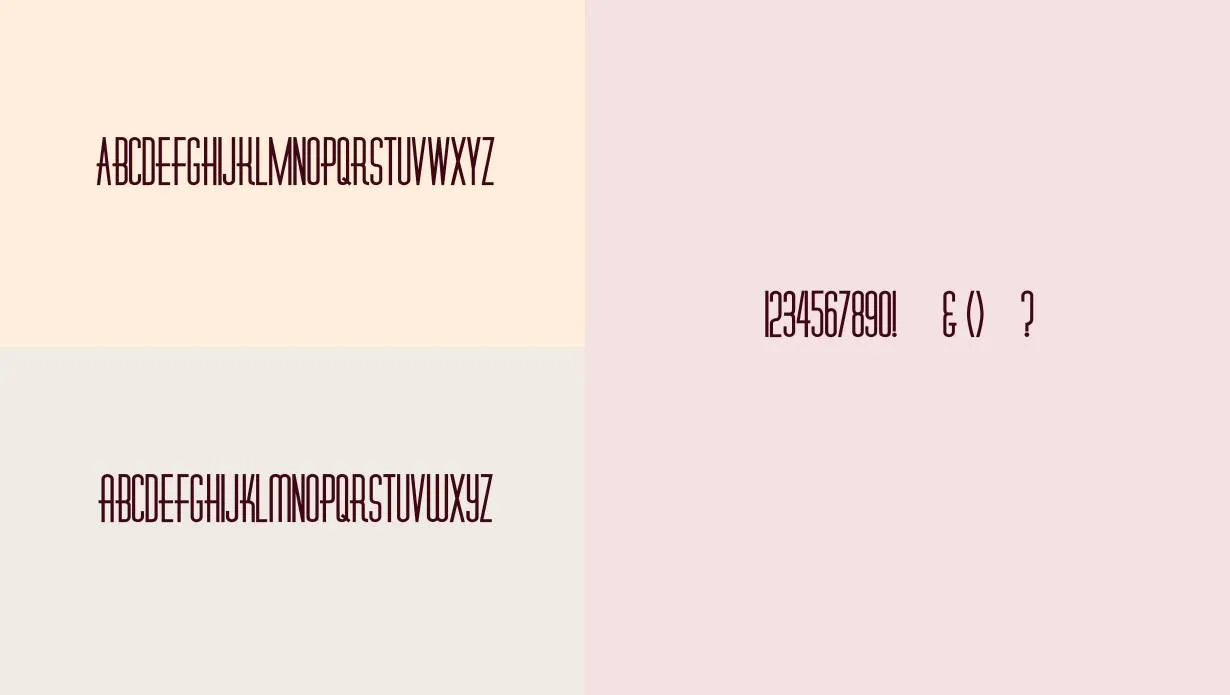
Diner Font takes you on a nostalgic journey back in time, adding a classic and retro flair to your words. Just like the iconic signs of vintage diners, this font exudes timeless charm in your writing.
Perfect for projects where a sense of the past is desired, Diner Font makes your words feel like a friendly conversation in a cozy diner booth. Its simplicity at its best, provides a retro allure that makes your words stand out with a touch of vintage character.